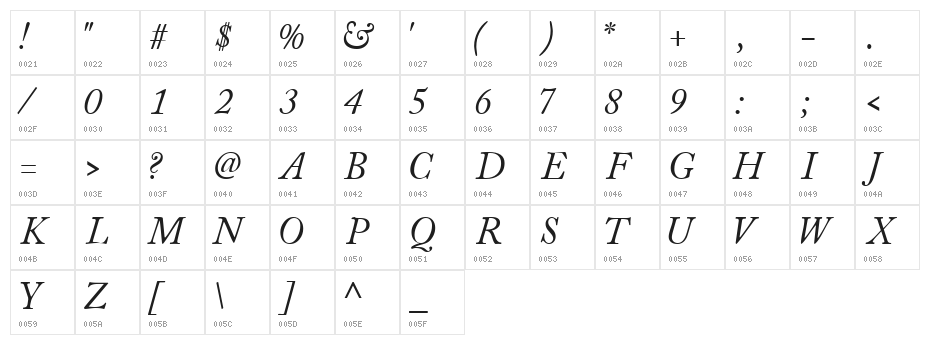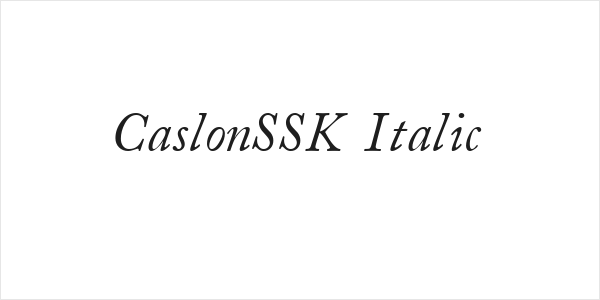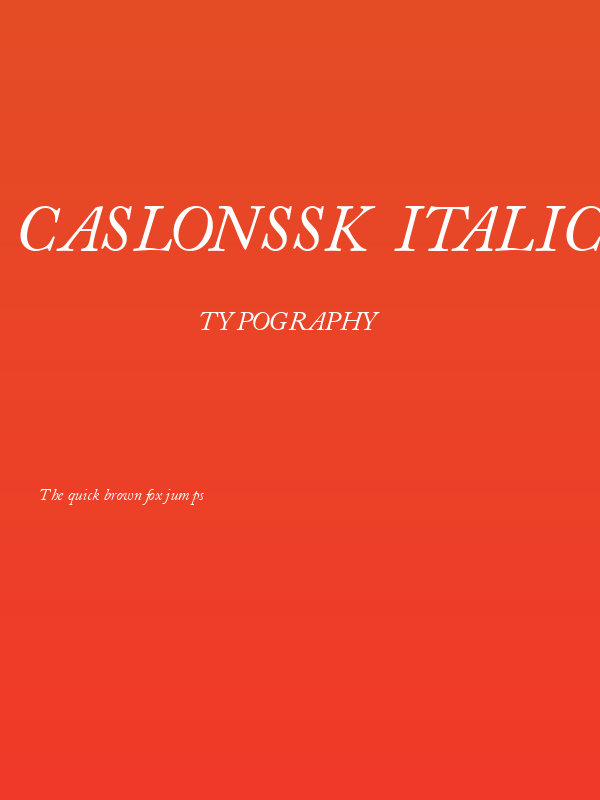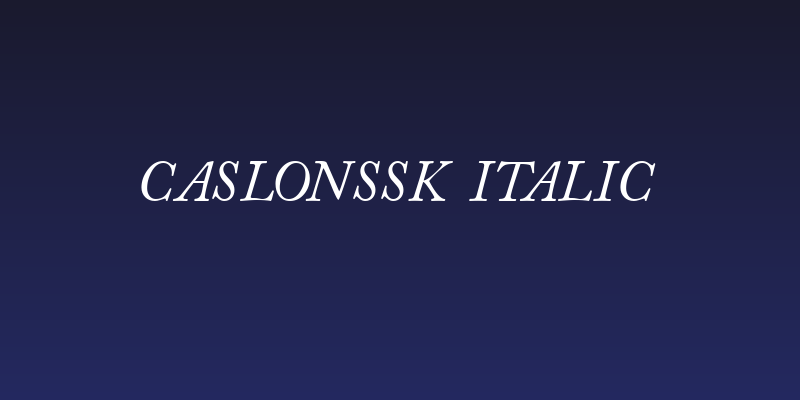
CaslonSSK Italic Font
CaslonSSK Italic Description
This elegant serif font features a classic italic style with a refined and sophisticated appearance. The letters are slightly slanted, giving a sense of motion and fluidity. The uppercase characters are well-proportioned, with distinct serifs that add a touch of formality. The lowercase letters maintain a consistent slant, enhancing readability while preserving the font's graceful aesthetic. Numbers and special characters are designed to complement the overall style, ensuring versatility across various applications. The font's timeless design makes it suitable for both traditional and modern contexts.
Overall StyleClassic
Proposed ProjectsIdeal for formal invitations, elegant branding, editorial design, and classic book covers.